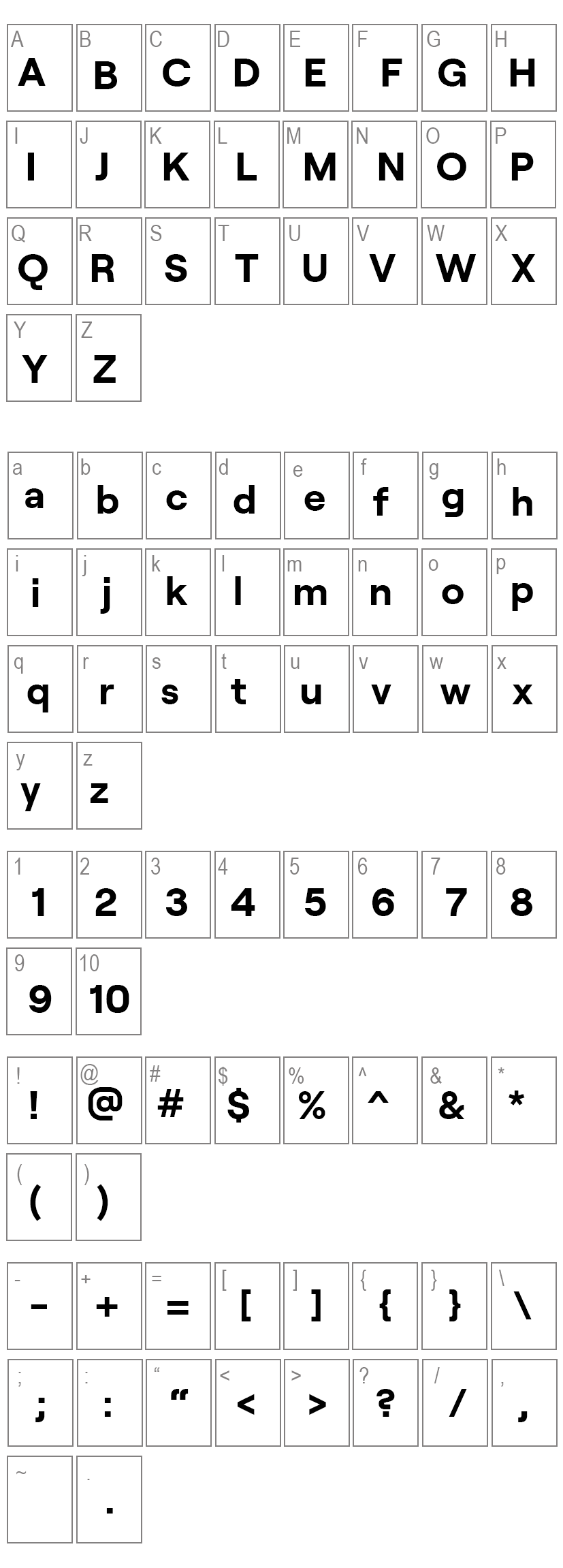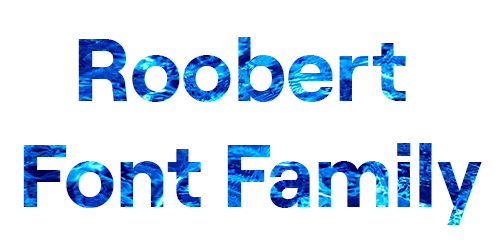
Roobert Font Family
The Roobert Font Family is a modern, geometric sans-serif typeface designed for versatility and clarity. Created with precision and attention to detail, Roobert offers a clean, minimalist aesthetic that adapts beautifully across various design environments. Its design combines functionality with a fresh, modern look, making it perfect for branding, digital interfaces, and print media.
Key Features of Roobert Font Family:
• Geometric Structure: Roobert’s design is rooted in geometric principles, resulting in clear, uniform letterforms.
• Multiple Weights: This font family includes several weights and styles, offering flexibility for both display and text uses.
• High Readability: The clear, legible letter shapes ensure Roobert remains easy to read, even at small sizes.
• Versatile Design: Whether used for digital interfaces or printed material, Roobert fits well into both minimal and creative projects.
• Multilingual Support: Roobert offers support for a wide range of languages, making it ideal for global projects.
Uses of Roobert Font Family:
The Roobert Font Family is designed to work in many different settings:
• Branding and Identity: Roobert’s modern, clean lines make it an excellent choice for branding projects that require a sleek, professional look.
• Web and UI Design: Its geometric simplicity makes Roobert highly suitable for digital interfaces, ensuring readability and usability.
• Print Design: Perfect for magazine layouts, posters, and other printed materials, Roobert adds a polished, contemporary edge to any project.
• Headlines and Display: The bolder weights are ideal for headlines and display purposes, drawing attention without overpowering the design.